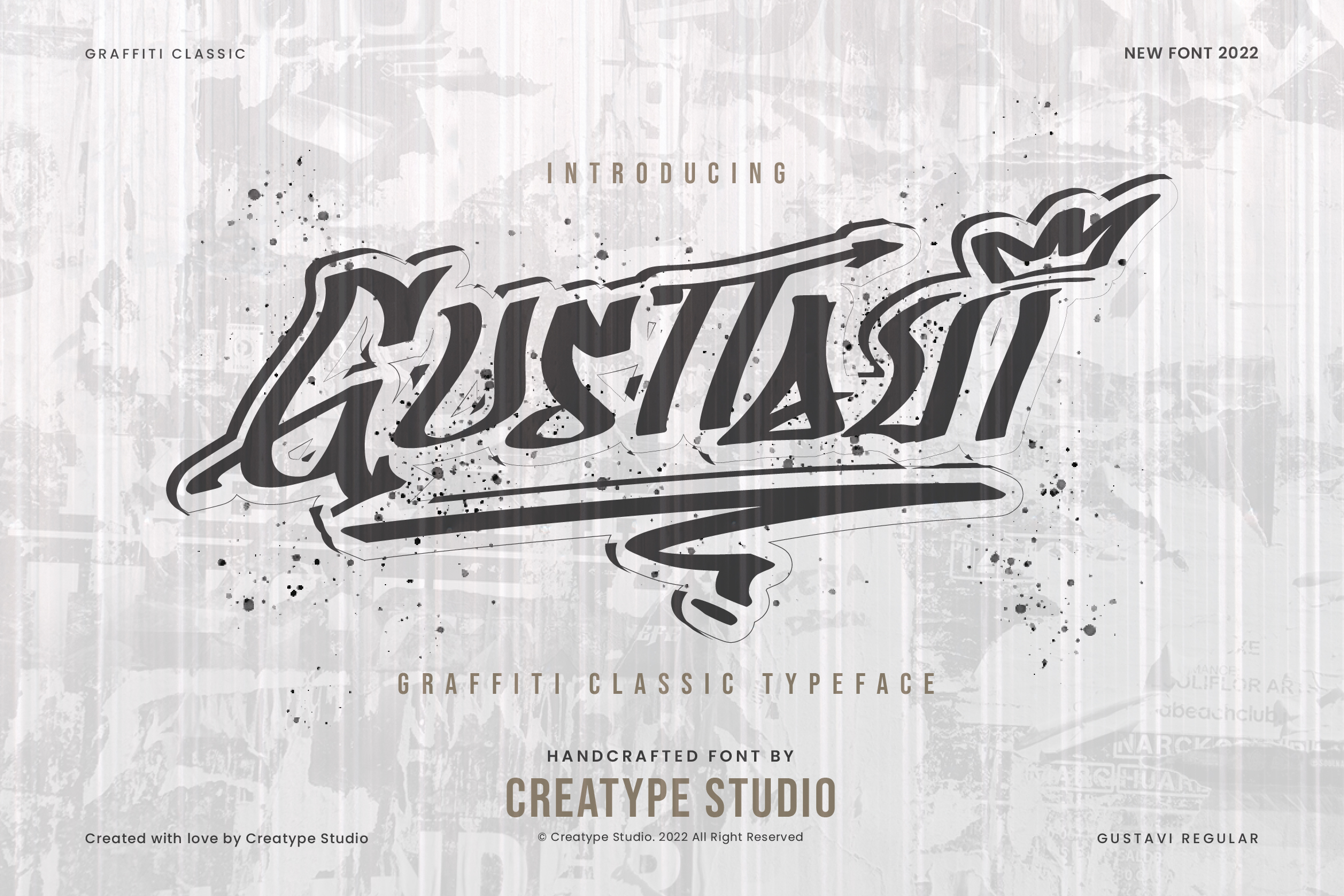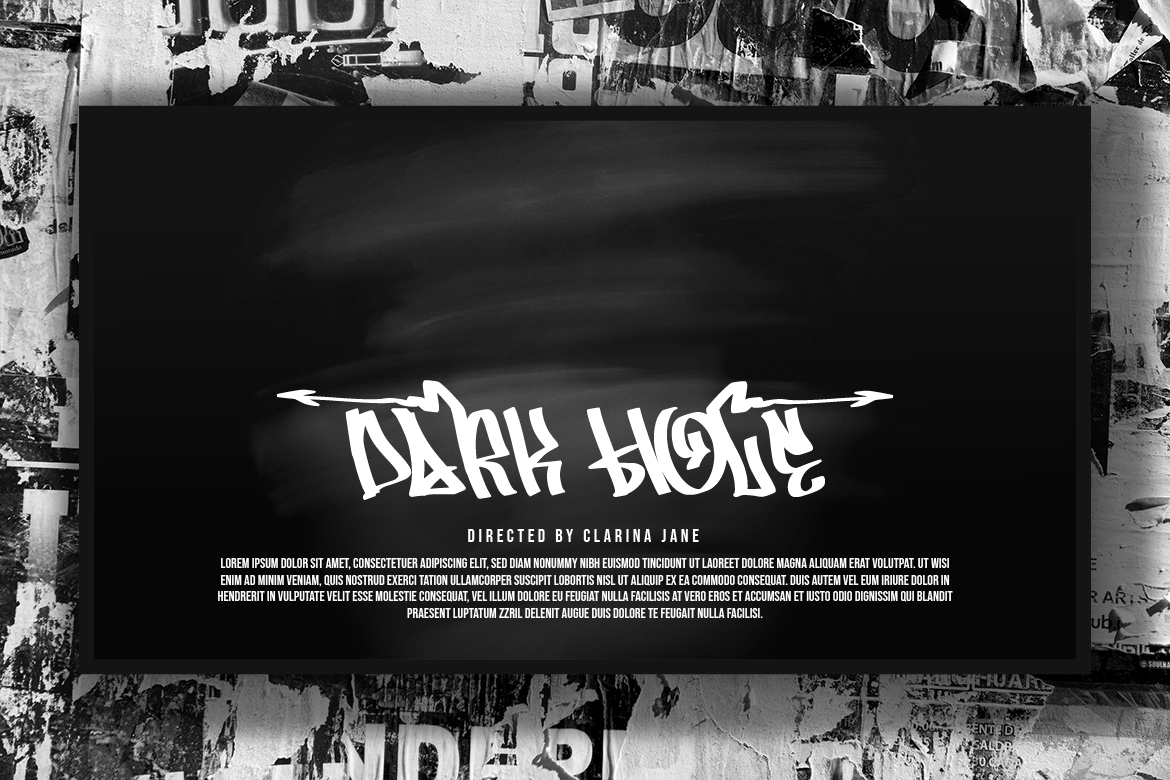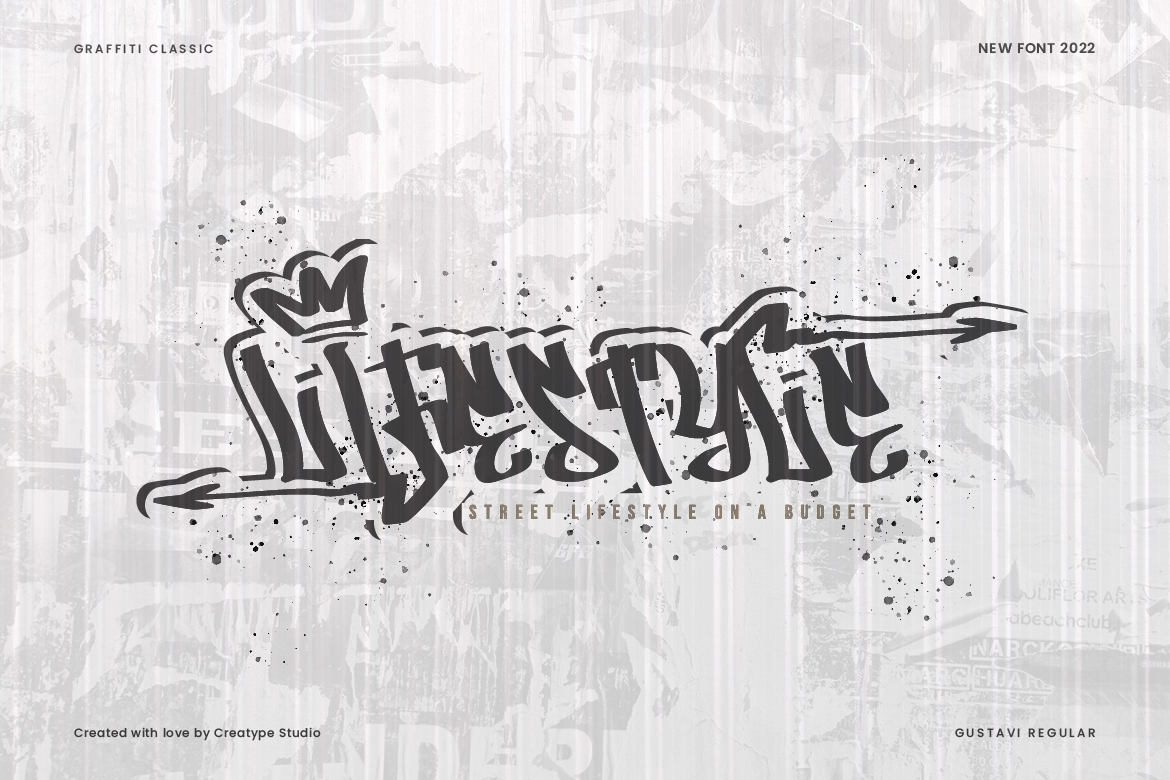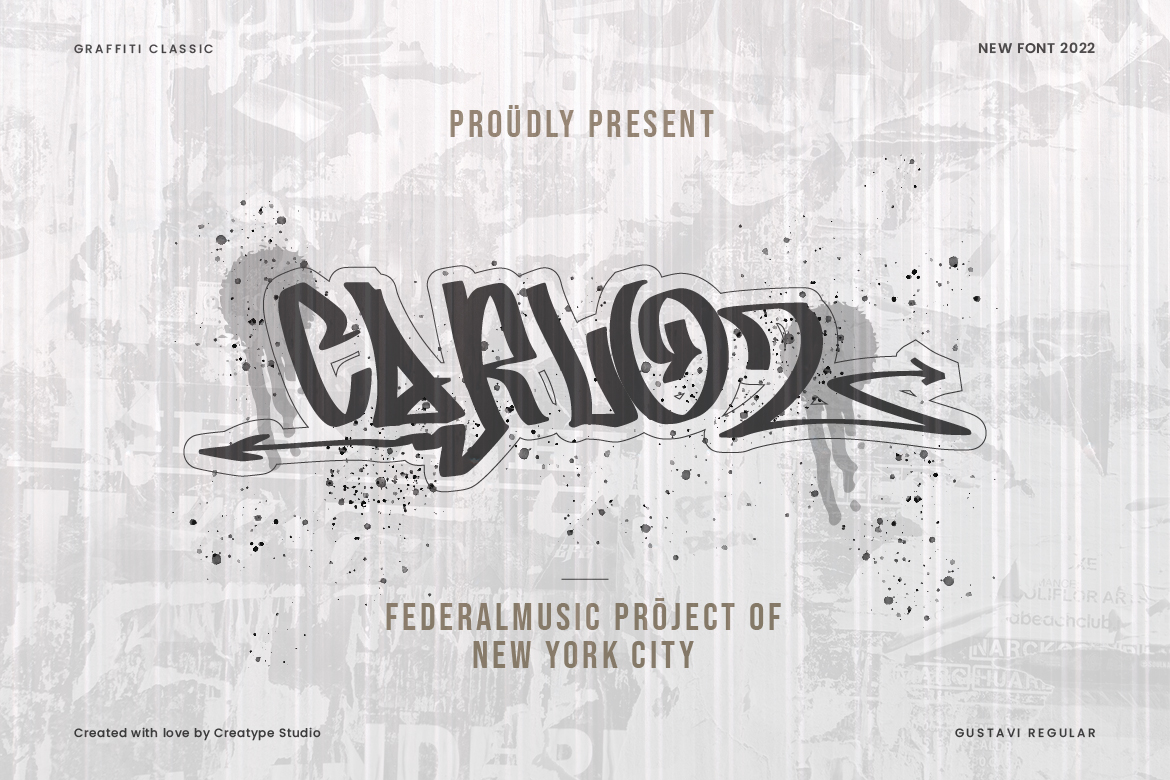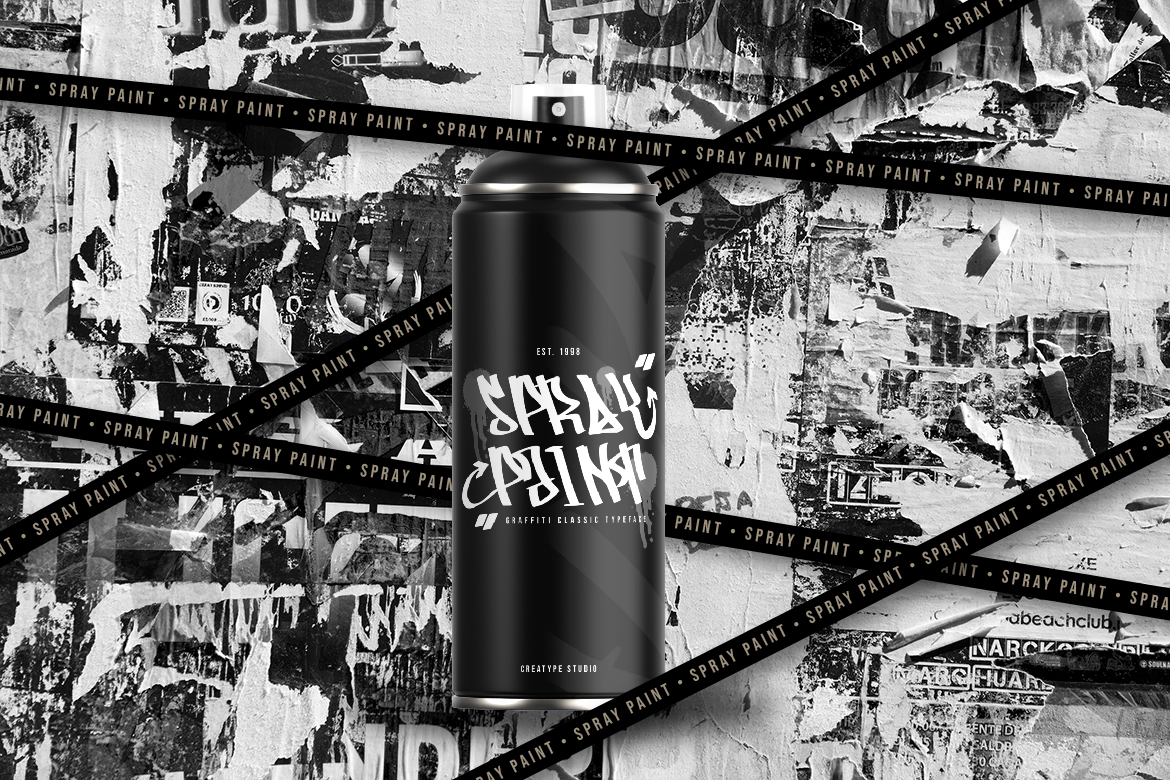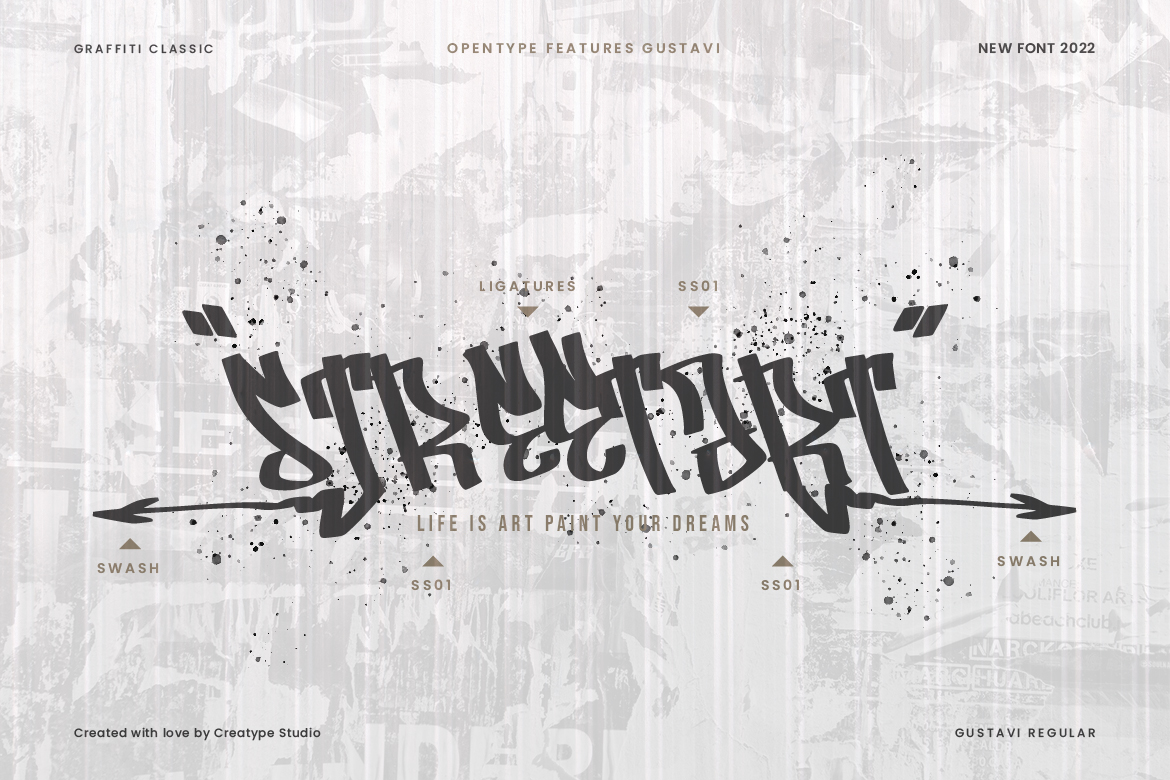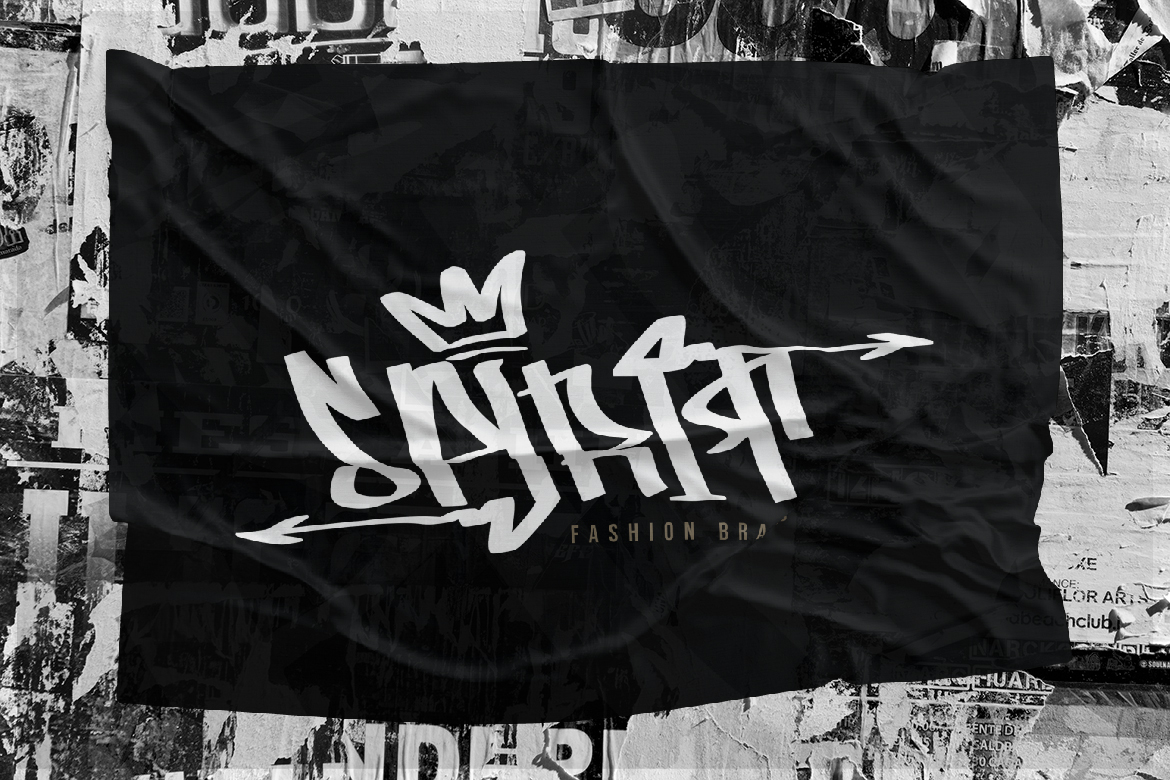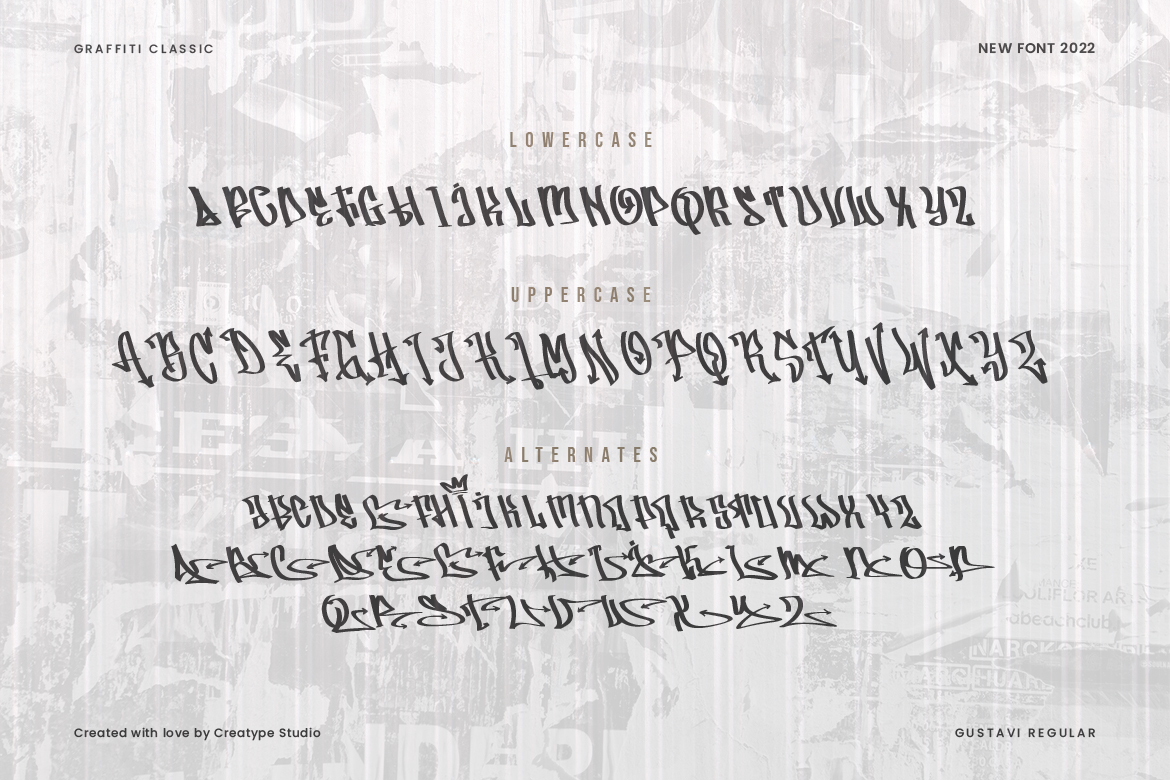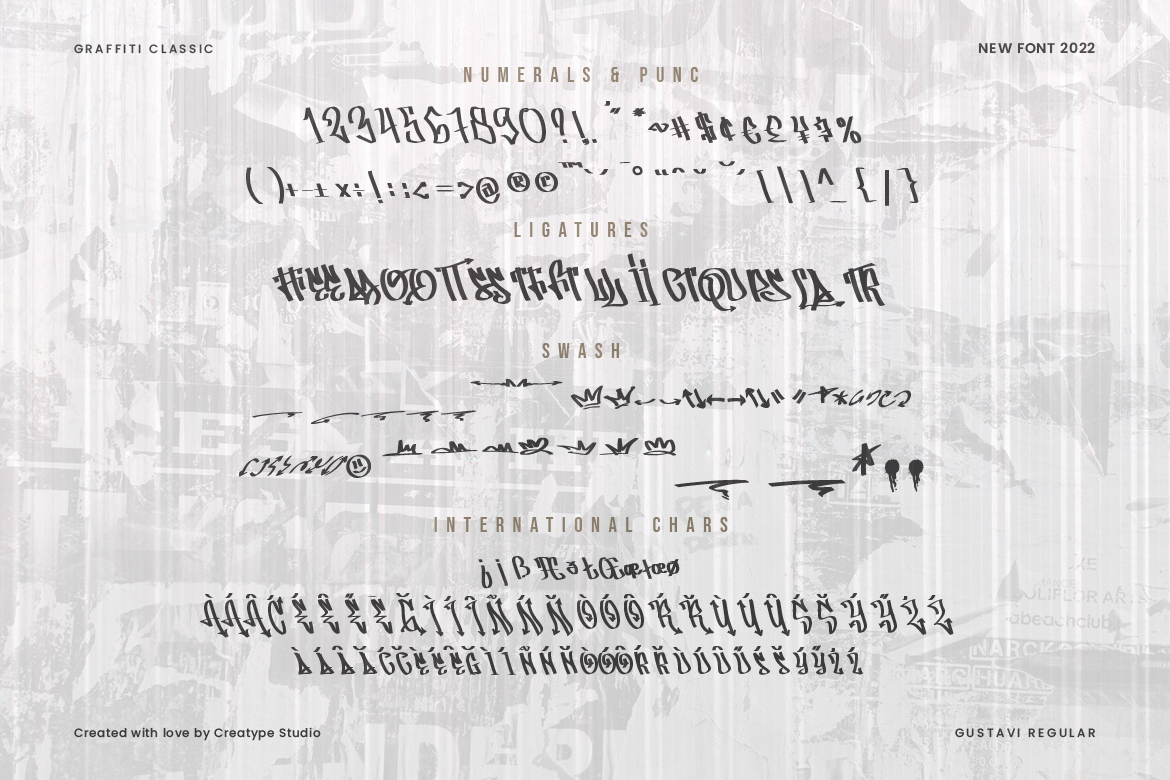
Gustavi Graffiti Style
We saw Gustavi on the walls in some streets. Creatype decided to bring the graffiti style to a typeface. It looks edgy, attractive, and cool, which will suit many needs.
Gustavi is perfect for branding projects, logo, wedding designs, social media posts, advertisements, product packaging, product designs, label, photography, watermark, invitation, stationery and any projects that need handwriting taste.
- Ton of glyphs
- Ligature & Alternate